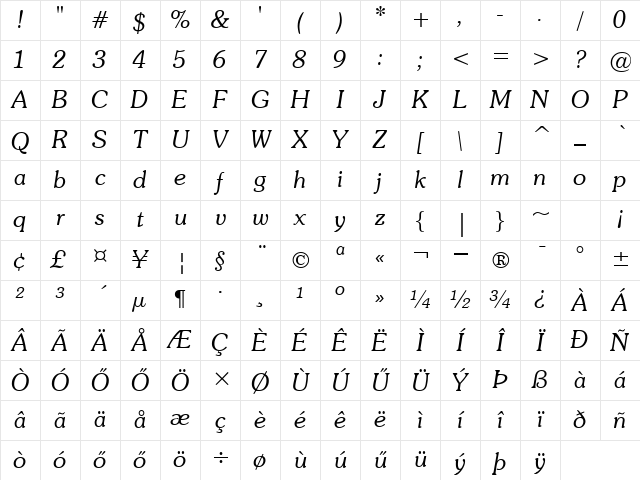
H_Souvenir BT LightItalic
Style: LightItalic
H_Souvenir BT Family
Complete H_Souvenir BT LightItalic glyph index. Displaying only characters natively supported by H_Souvenir BT LightItalic font.
Design Context for H_Souvenir BT
H_Souvenir BT is a composed and adaptable typeface that performs quietly and consistently across a wide range of design contexts. The slanted form adds forward momentum and visual energy. Its slender proportions lend an understated elegance to any composition.
Pro Tip: Use H_Souvenir BT for emphasis, pull quotes, and subheadings where its slanted energy can add rhythm to the layout.